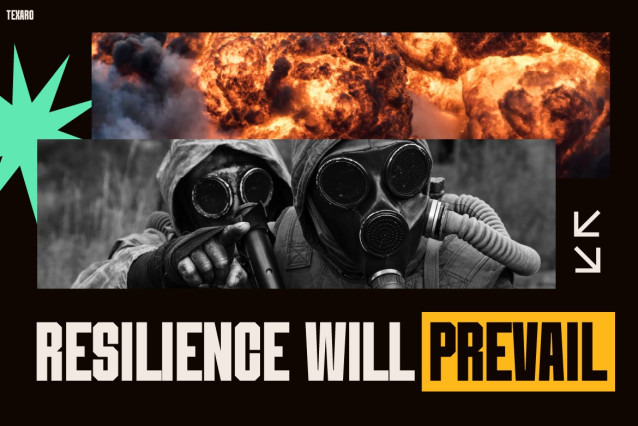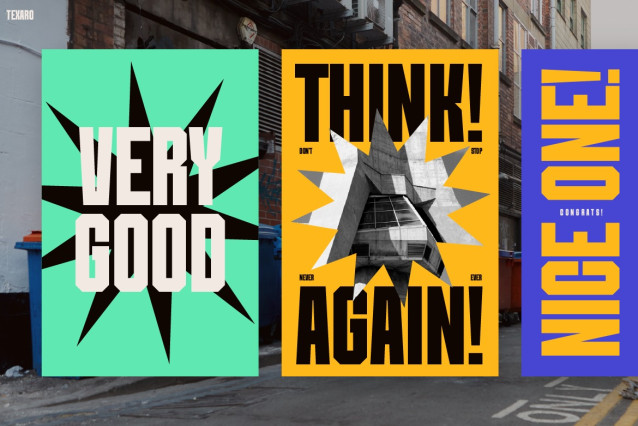
Texaro Font
TEXARO FONT is a bold, modern typeface designed to instantly grab attention and create a strong visual impact. Unlike ordinary fonts, TEXARO combines sharp edges with confident letterforms, making every word stand out with authority. Moreover, its versatile design ensures that your text remains clear and engaging in both small captions and large-scale headlines. With uppercase, lowercase, numbers, and full punctuation included, this font is not only stylish but also highly functional. Therefore, it becomes the perfect balance between aesthetics and usability.